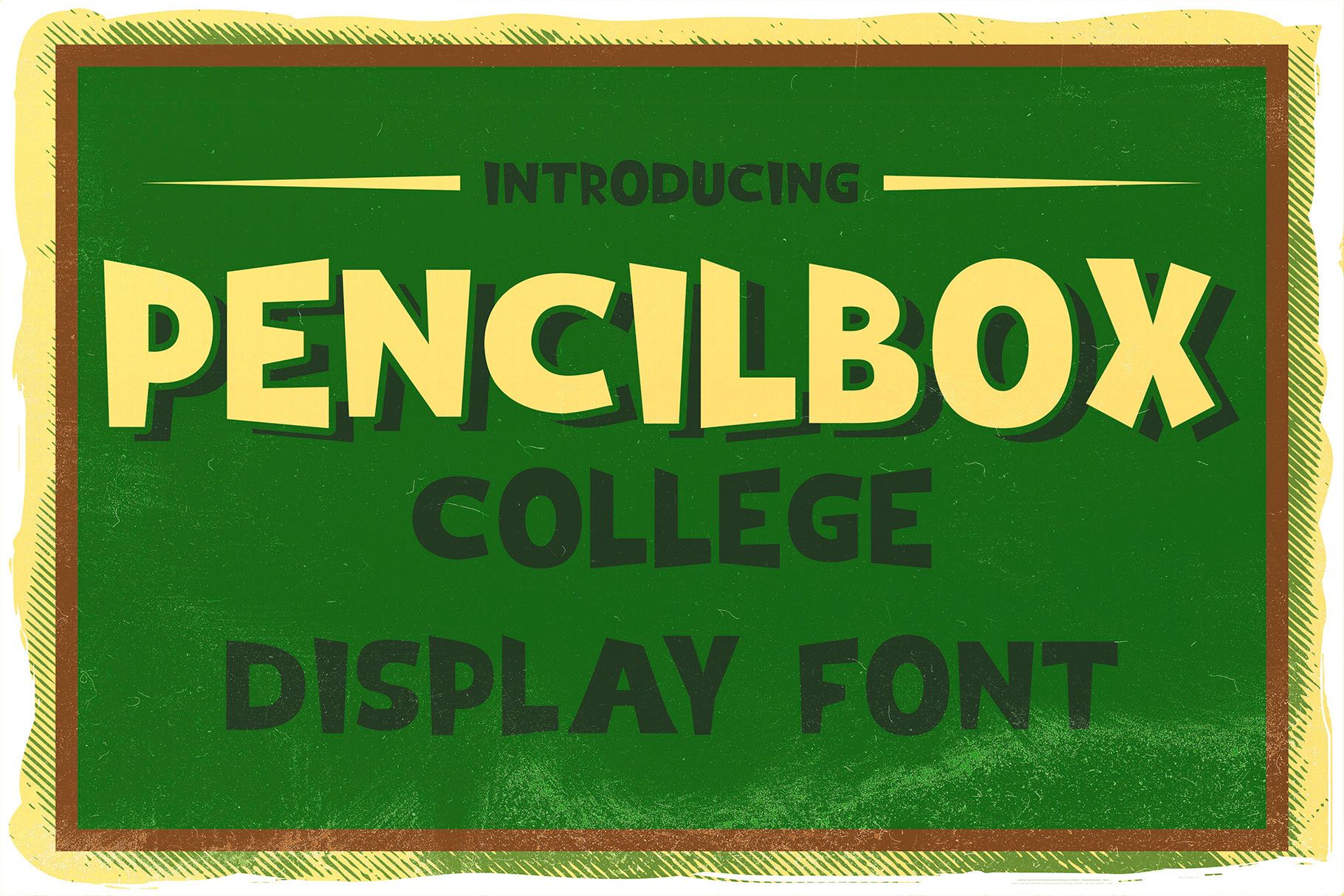
Pencil Box font 6 t-shirt designs
Introducing my newest font called "Pencil Box". This font was inspired by school and college. It has wide language support of multilingual characters (check out all available characters in previews). Bonus 10 t-shirt designs..This font will look good on any vintage-styled designs like a poster, T-shirt, label, logo, etc.
- A lot of additional symbols, alternative characters, and multilingual support.